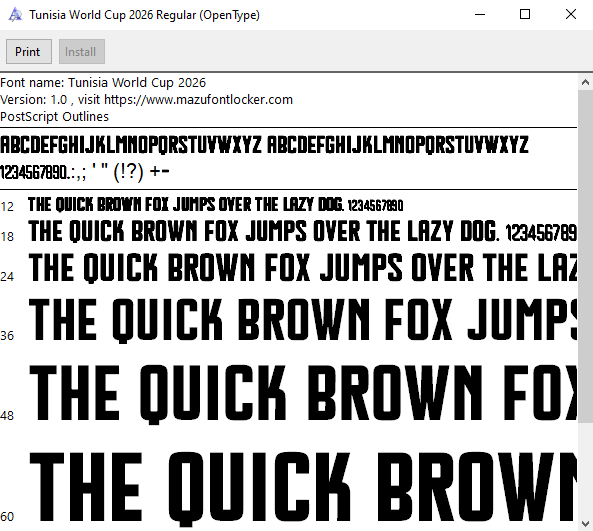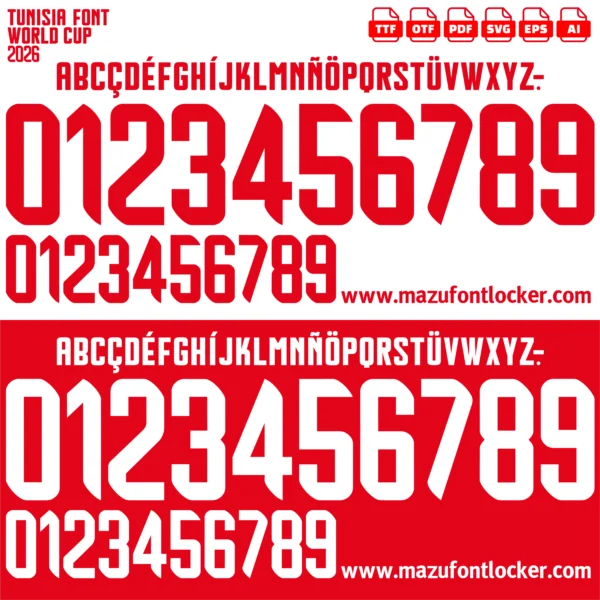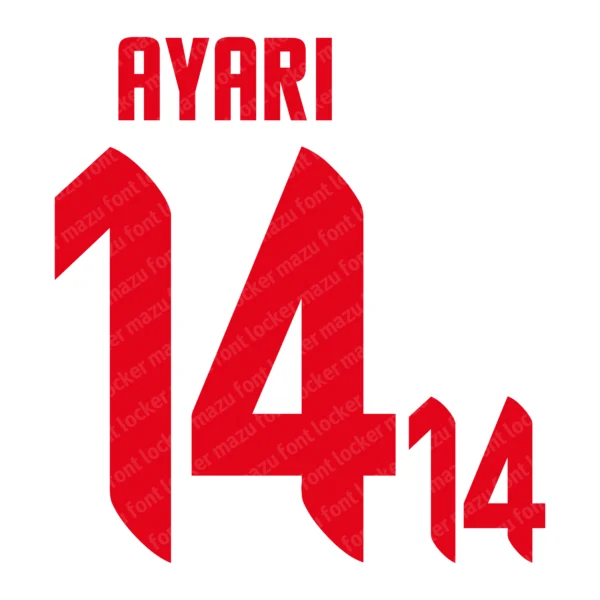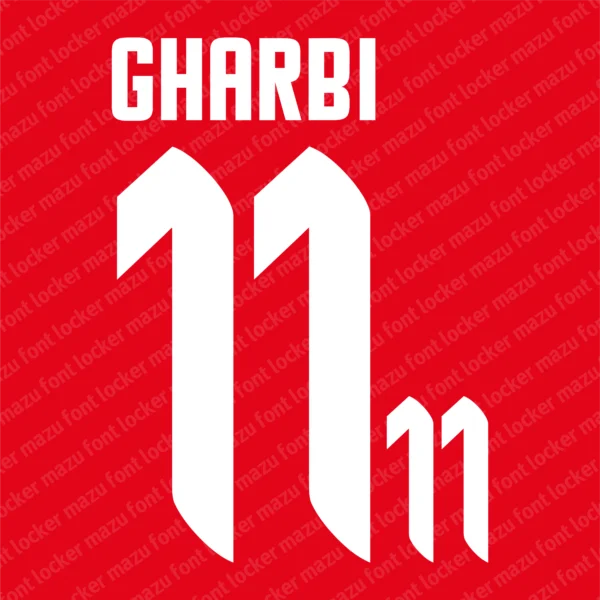
Tunisia World Cup 2026 Font Vector – Stunning Eagles Championship Masterpiece
This premium font captures the bold, iconic, fearless, and battle-hardened lettering that embodies the spirit of the Carthage Eagles — delivering unwavering national pride, explosive attacking energy, relentless fighting determination, tactical discipline, and the legendary warrior mentality that has made Tunisia one of Africa’s most respected football forces. Every character reflects the passion, resilience, and championship ambition that inspired millions of supporters throughout the historic World Cup journey.
Tunisia World Cup 2026 Font Vector – Authentic Carthage Eagles Typeface
The Tunisia World Cup 2026 Font Vector is a premium typeface that accurately recreates the official match lettering worn by the Tunisia national team during the 2026 FIFA World Cup campaign. This high-quality vector font kit captures the bold, modern, and distinctive typography that reflects the pride, determination, and rich football heritage of the Carthage Eagles.
Designed for professional designers and passionate Tunisia supporters, the Tunisia World Cup 2026 Font Vector delivers perfect authenticity for creating realistic jersey mockups, fan merchandise, matchday posters, social media graphics, and international football content. It pairs beautifully with Tunisia’s iconic red and white kits featuring the famous national crest.
Why Choose Tunisia World Cup 2026 Font Vector
This font stands out because of its sharp vector precision and strong national identity. Every letter and number is crafted to match the exact style used on the players’ shirts during the 2026 World Cup campaign. Whether you are creating professional kit templates or celebrating Tunisia’s biggest football moments, the Tunisia World Cup 2026 Font Vector delivers an authentic match-ready appearance.
The letterforms in the Tunisia World Cup 2026 Font Vector are bold, clean, and highly readable. The characters feature balanced proportions and sharp detailing that create a professional appearance on both home and away jerseys while maintaining a modern football aesthetic.
The numerals feature strong geometric construction with excellent visibility and balance. Every number is carefully vectorized to ensure flawless scaling across digital graphics, print projects, and jersey applications.
• Full uppercase A–Z and numbers 0–9 in authentic Tunisia World Cup 2026 style
• Includes authentic styling inspired by official tournament match shirts
The Tunisia World Cup 2026 Font Vector is an independently designed typeface package. It is carefully crafted to replicate the official shirt lettering style used during the 2026 FIFA World Cup. This font kit is ideal for football-themed creative projects, fan artwork, jersey concepts, and professional sports graphics.